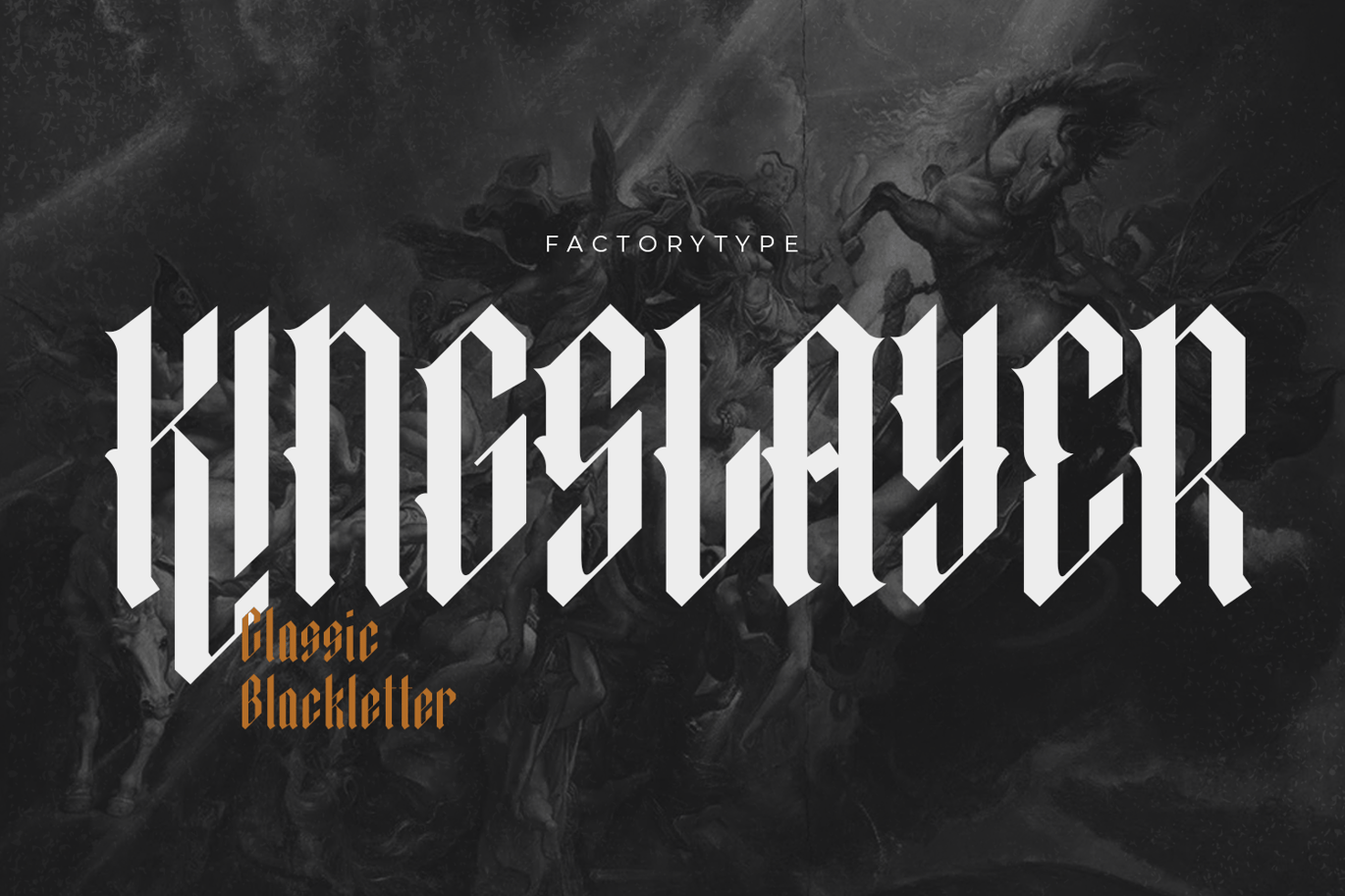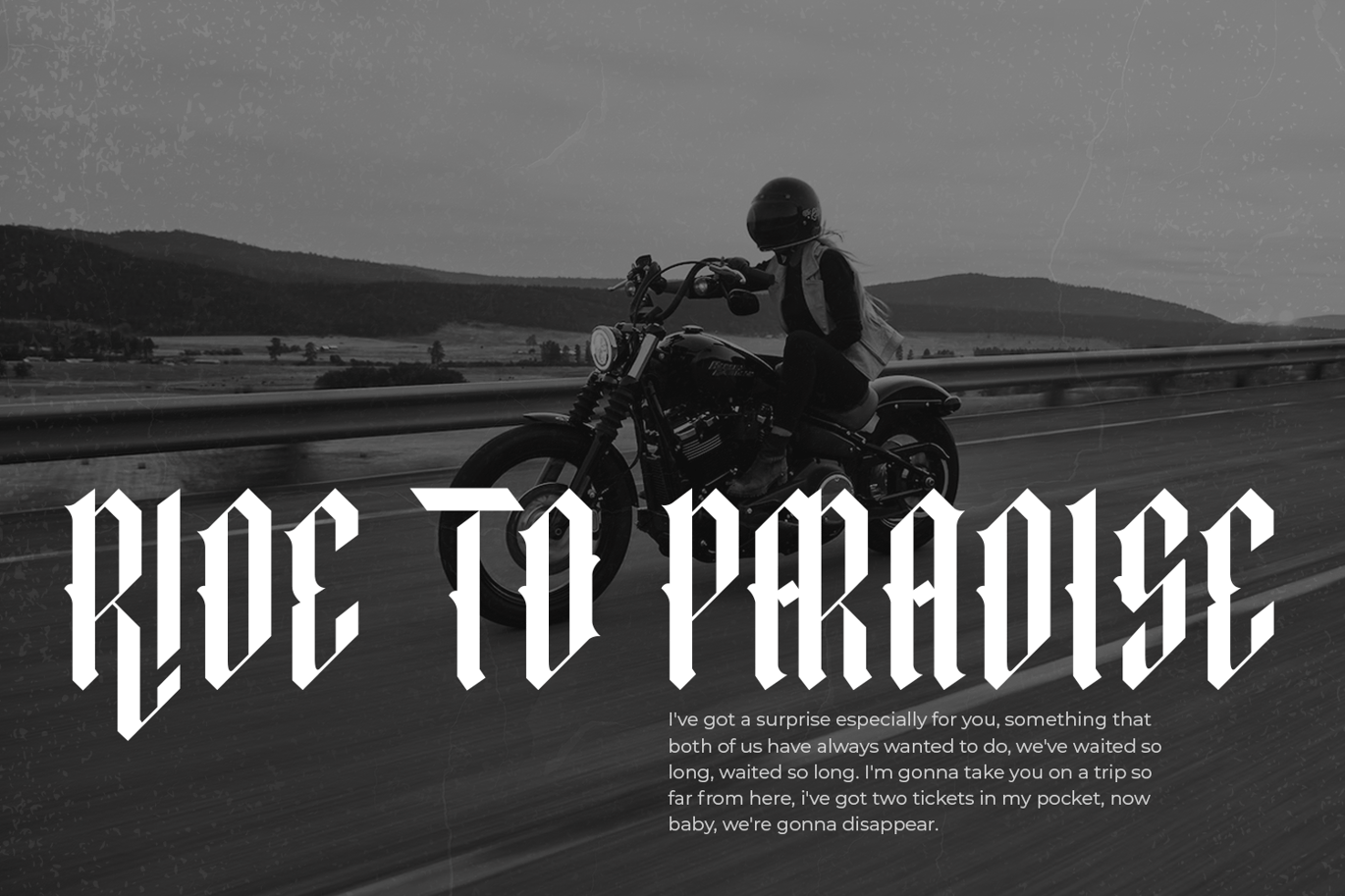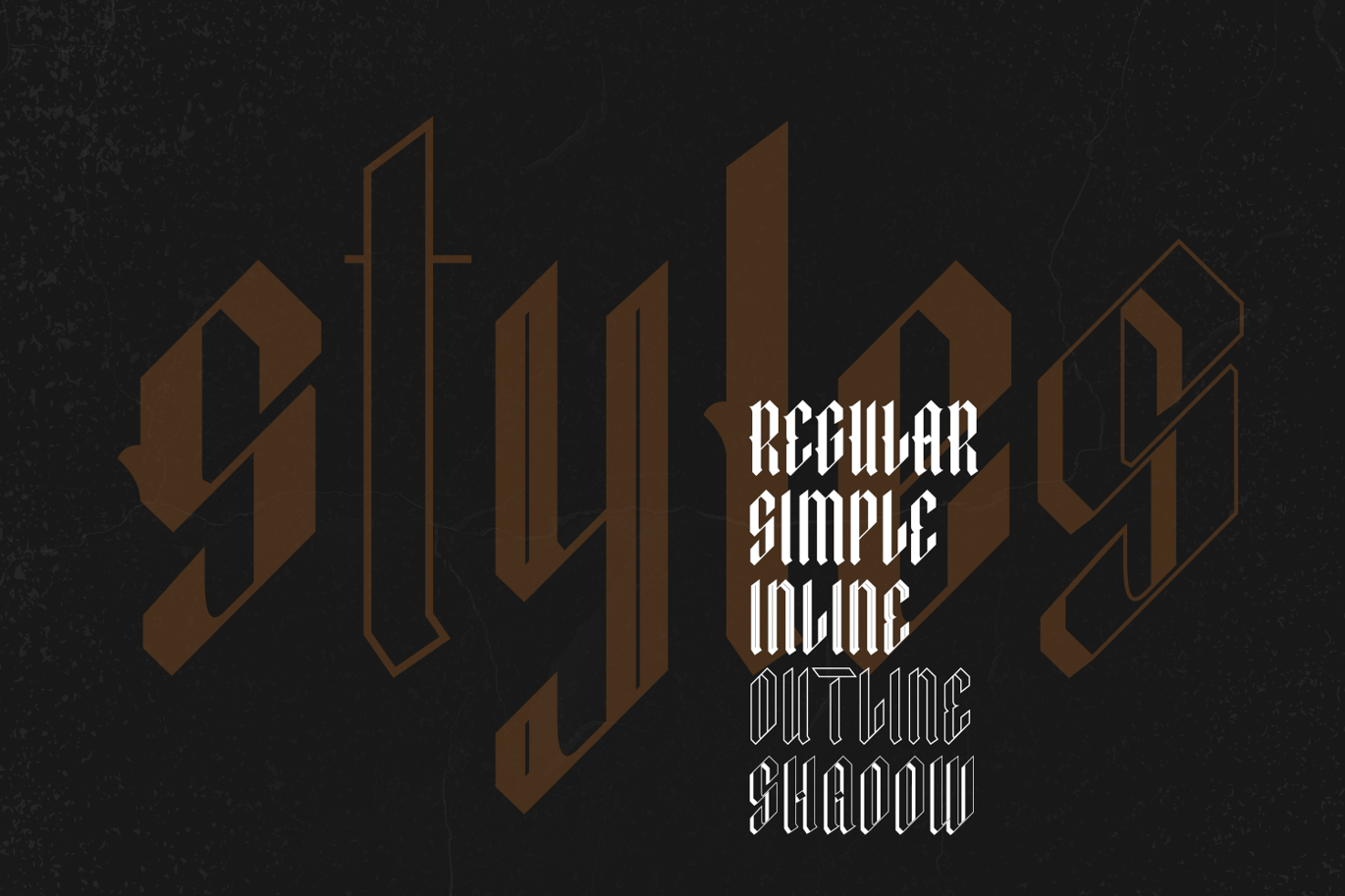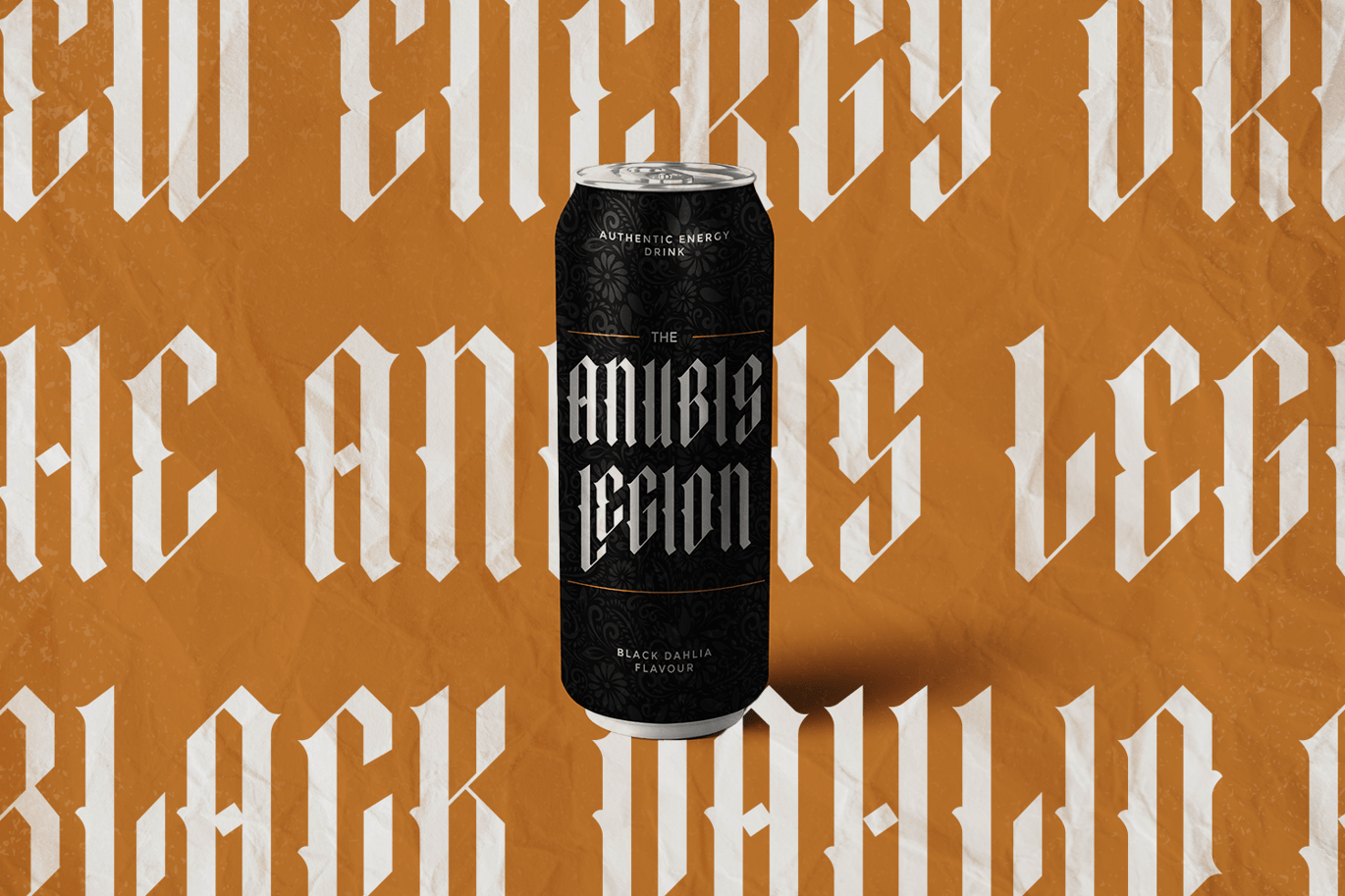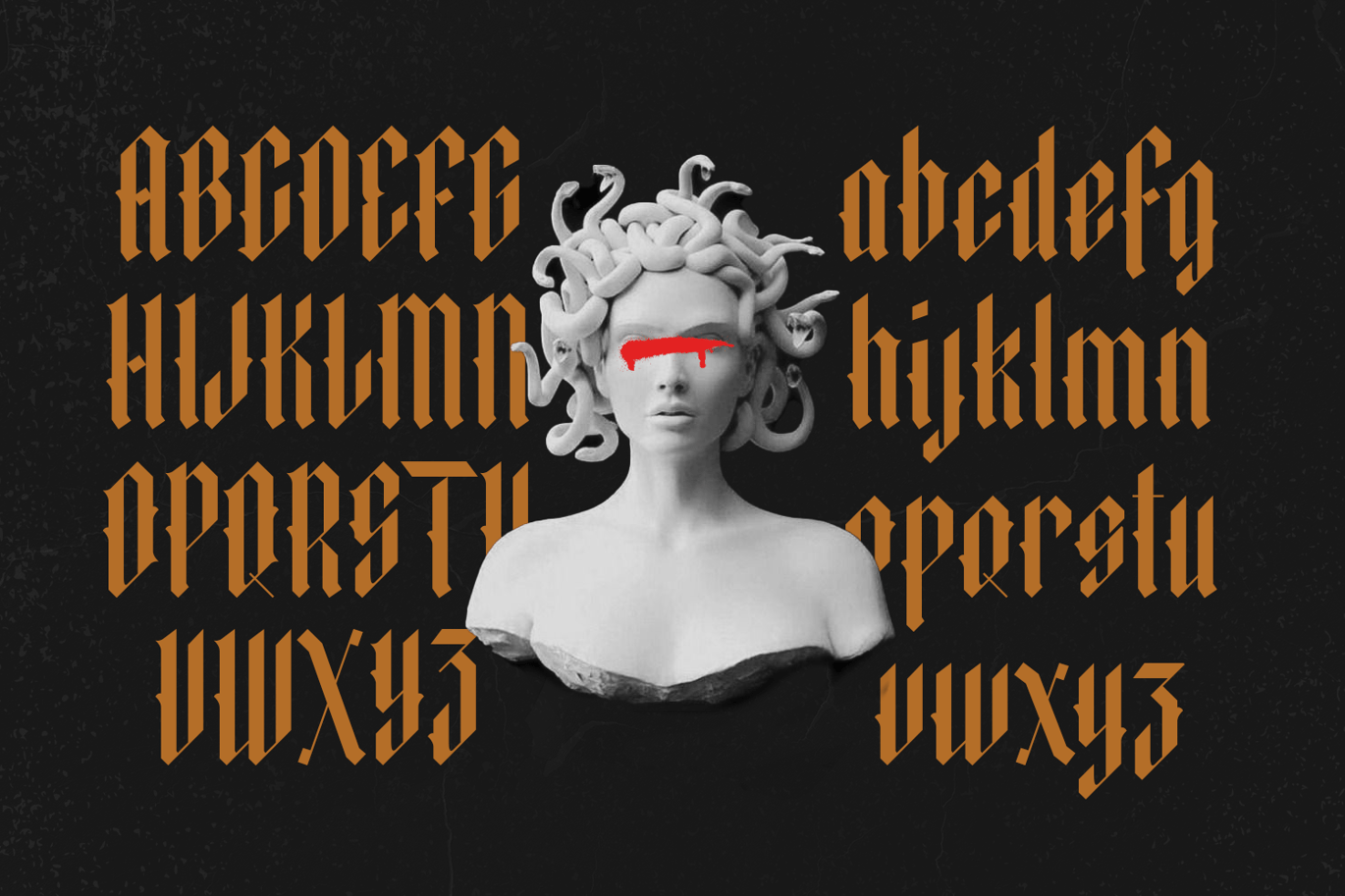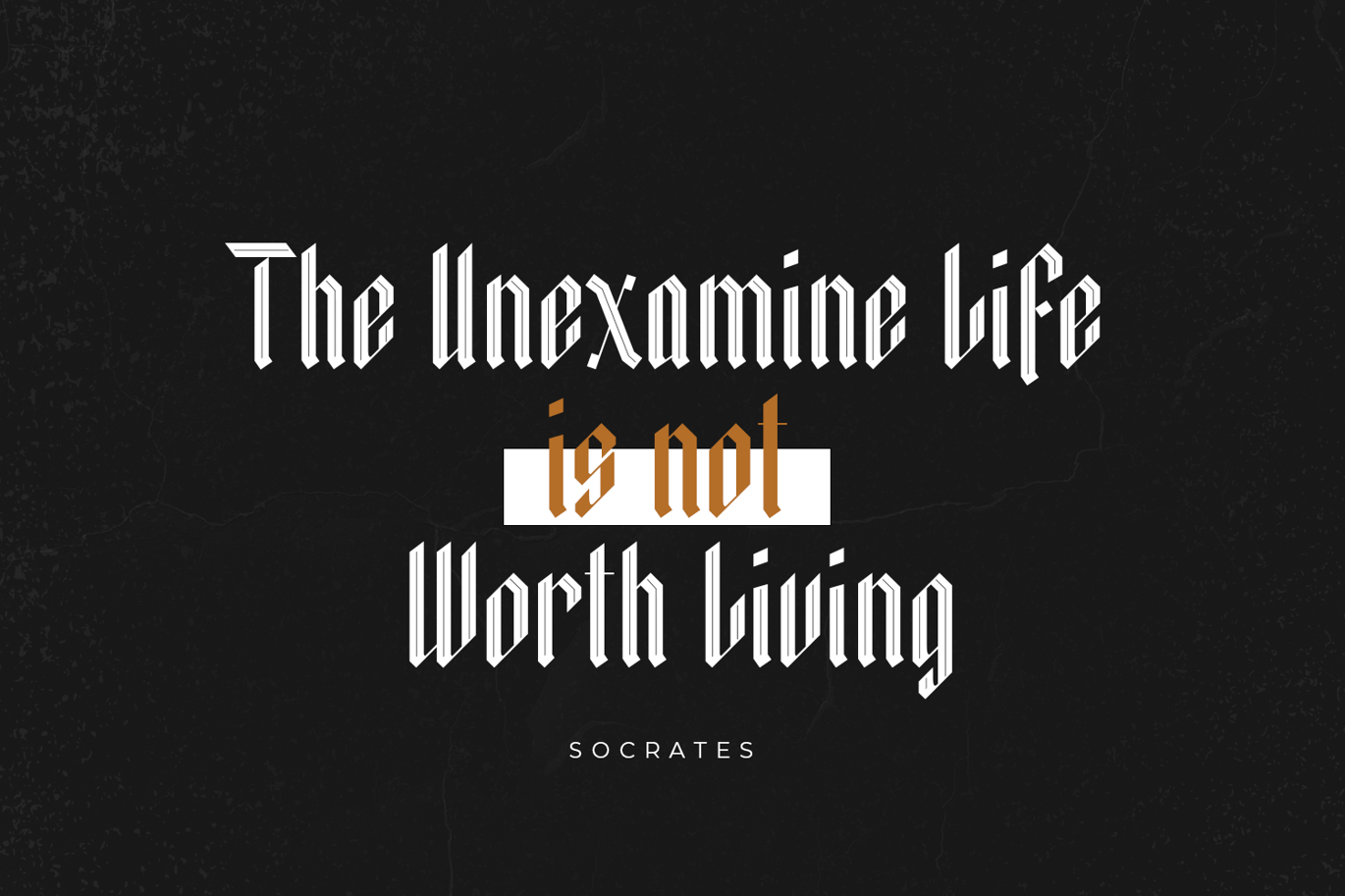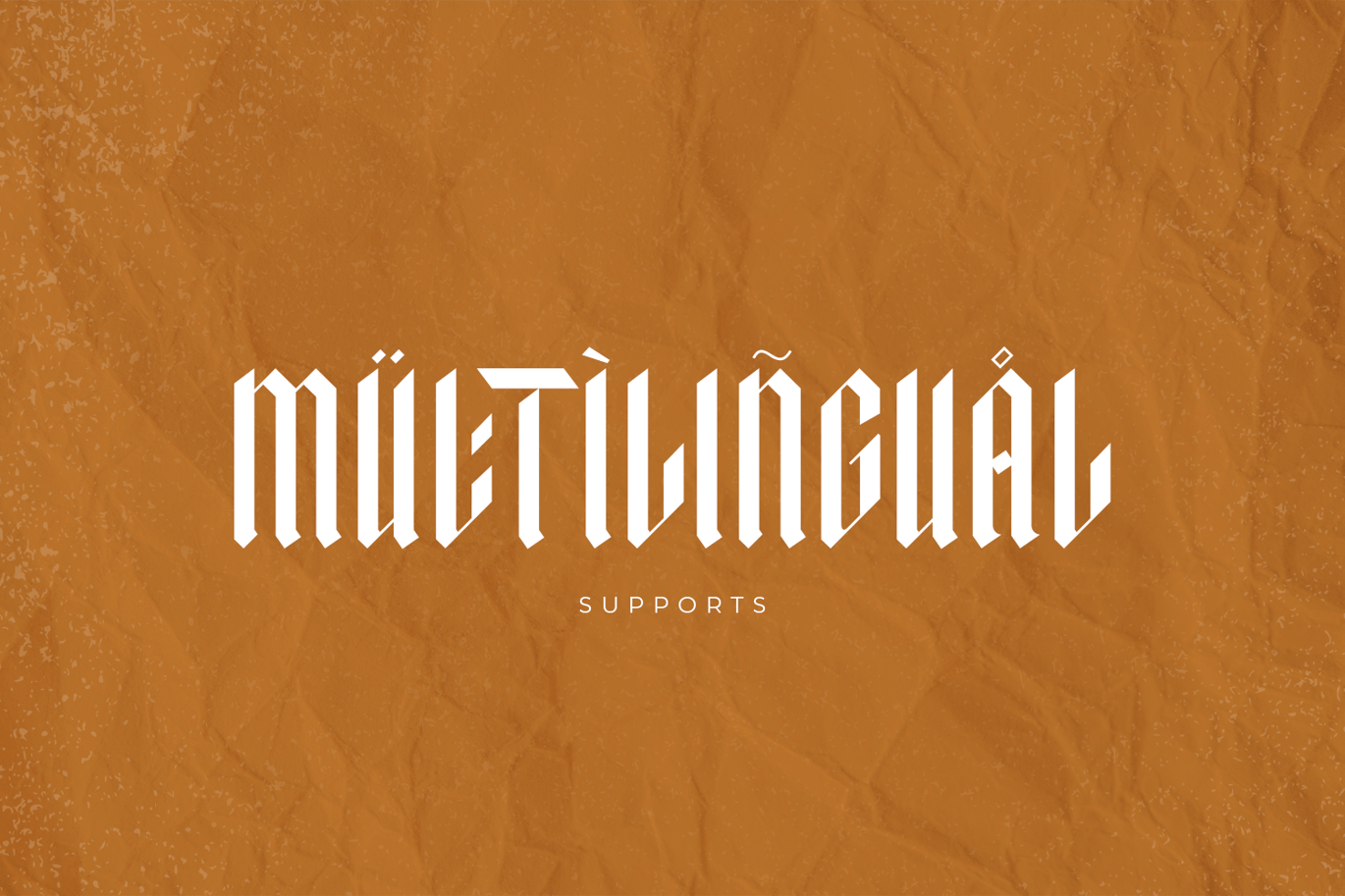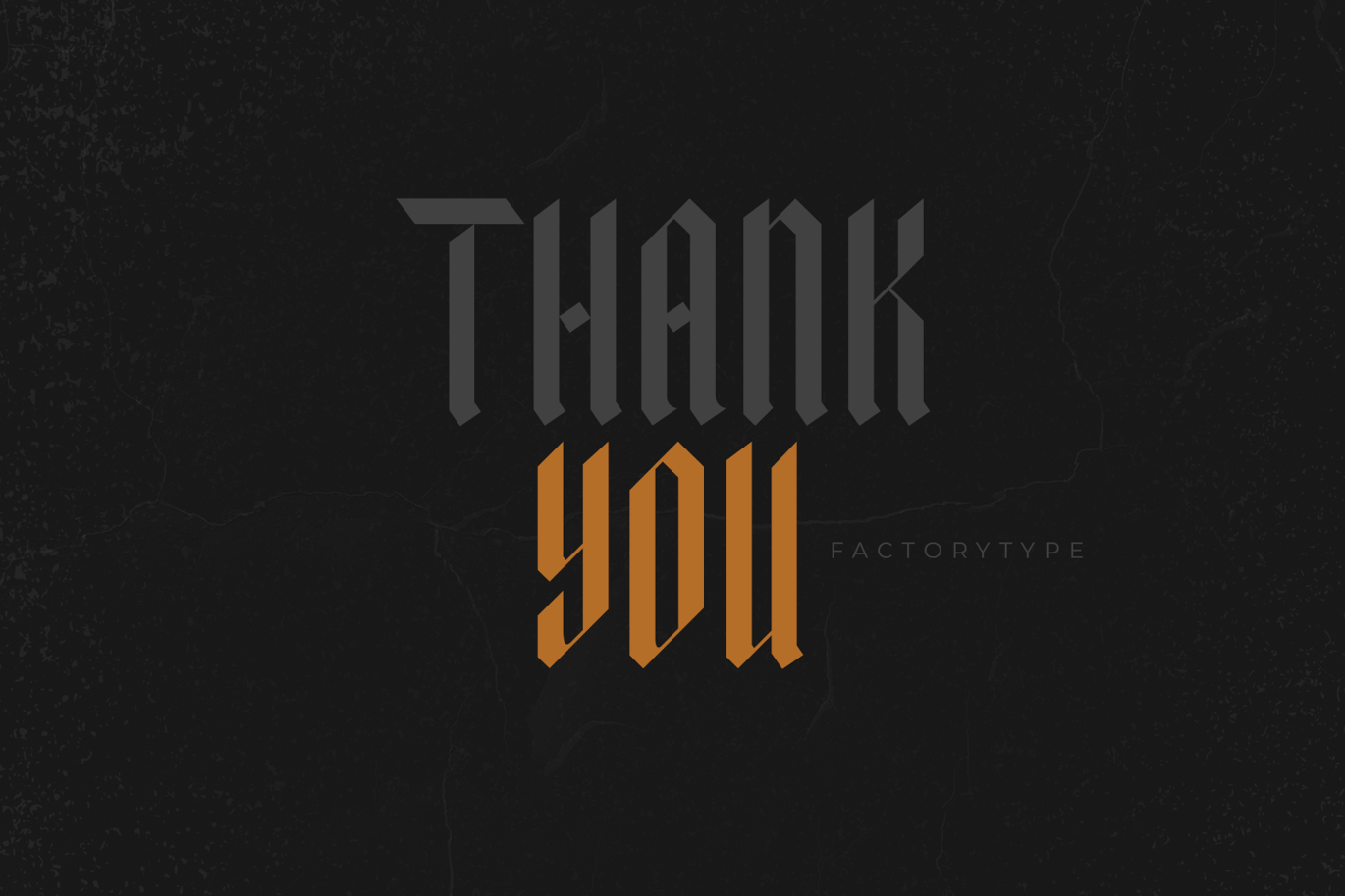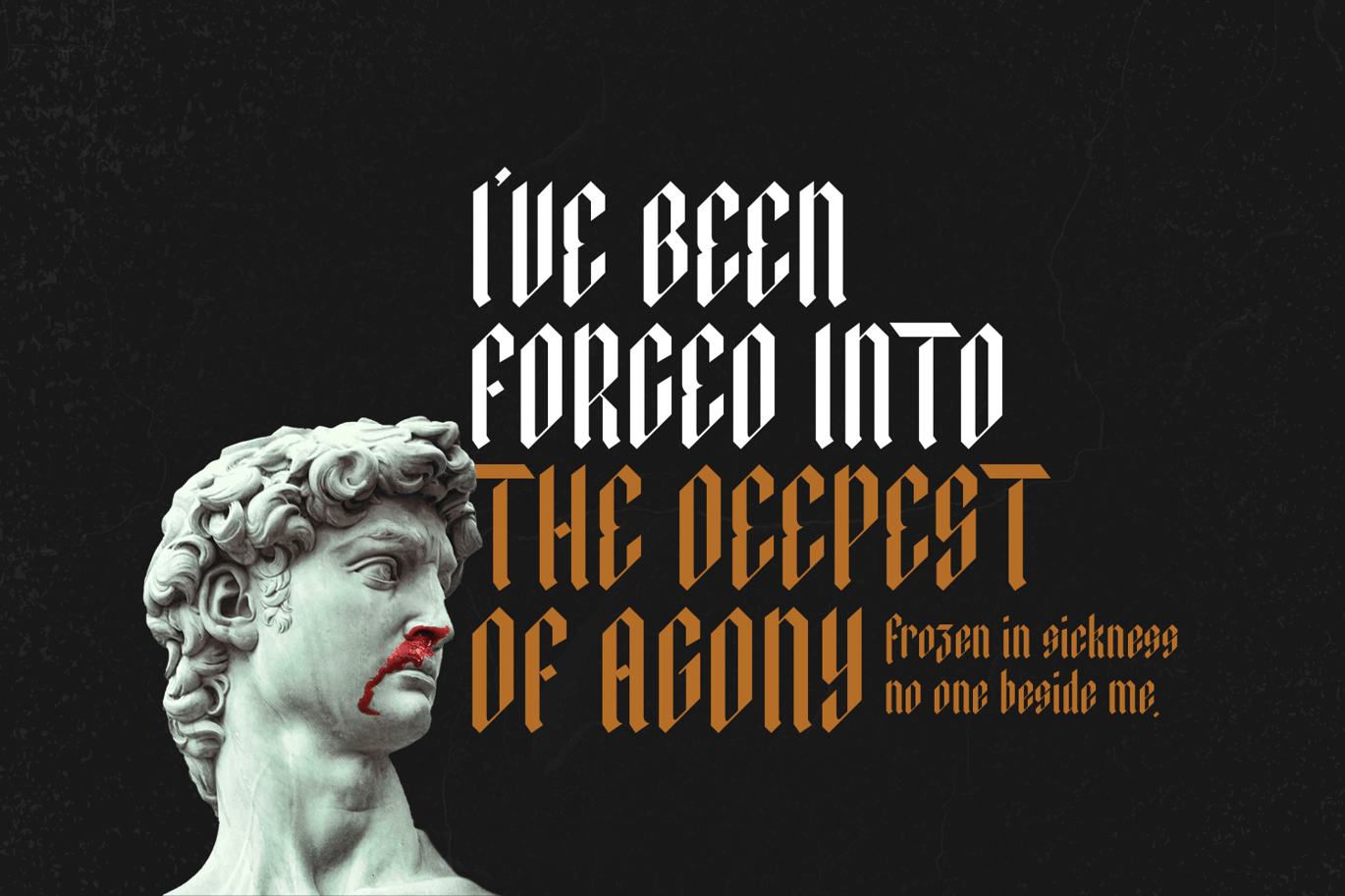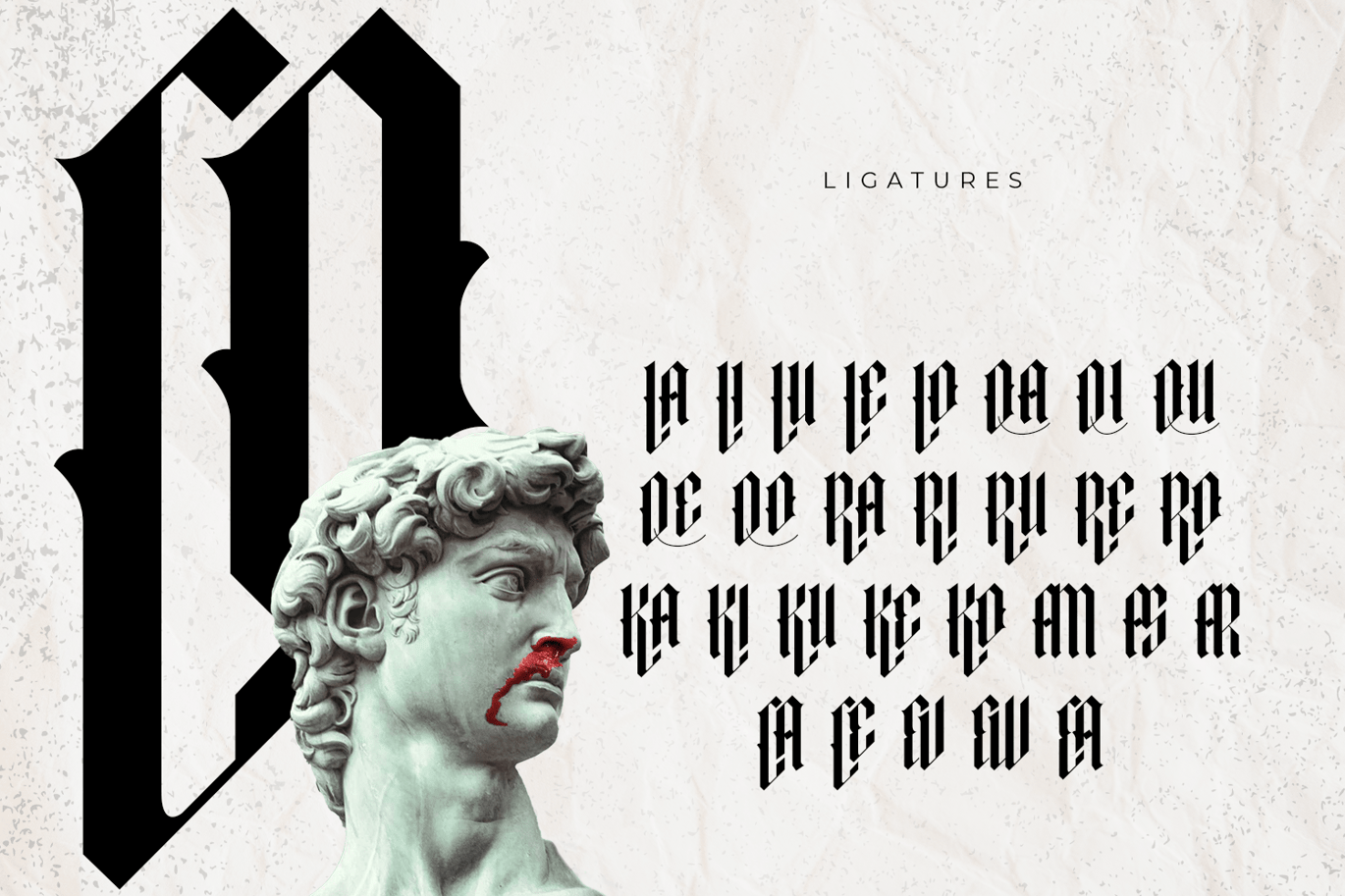
Kingslayer – Modern Blackletter Font
KINGSLAYER is a typeface inspired by German Blackletter Fraktur with a twist of Sweden. The elegant design was created by fusing modern and vintage elements. The available Ligatures provide a diverse range of characters to make your project design stand out.
- 5 Styles (Regular, Inline, Outline, Shadow, Simple)
- Stylistic Ligatures and Alternate glyps
- Multilingual Support for ä ö ü Ä Ö Ü …